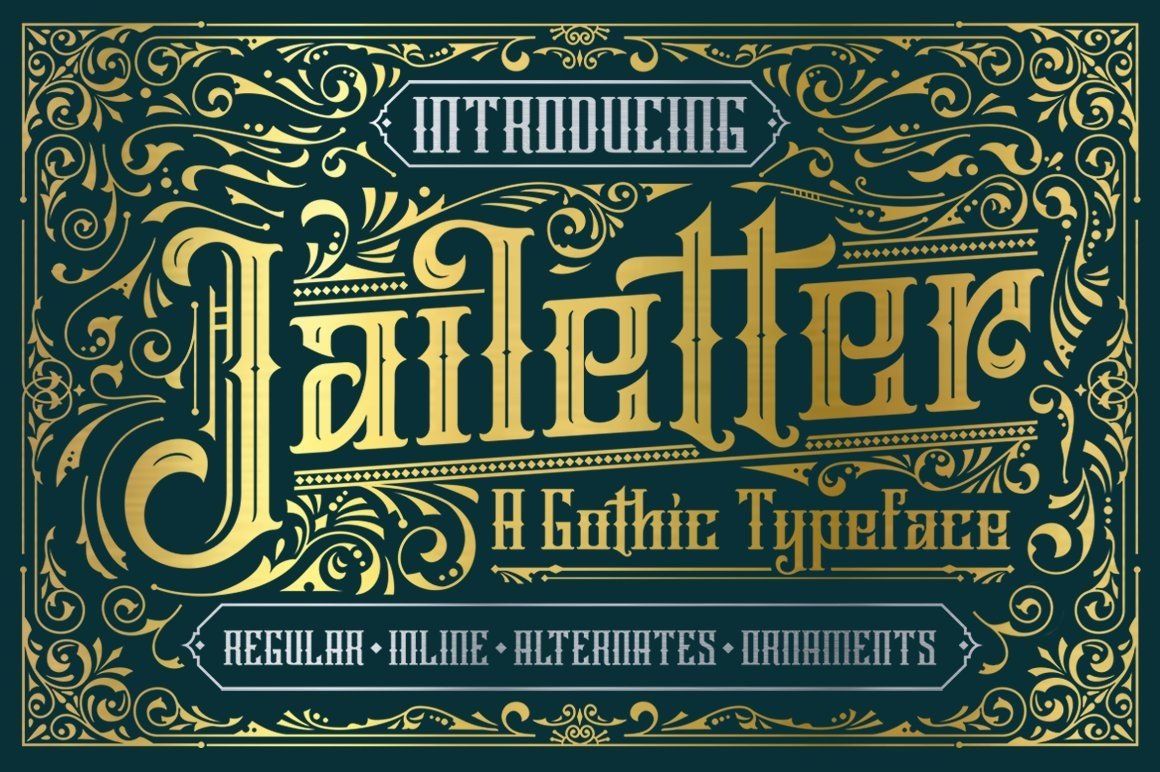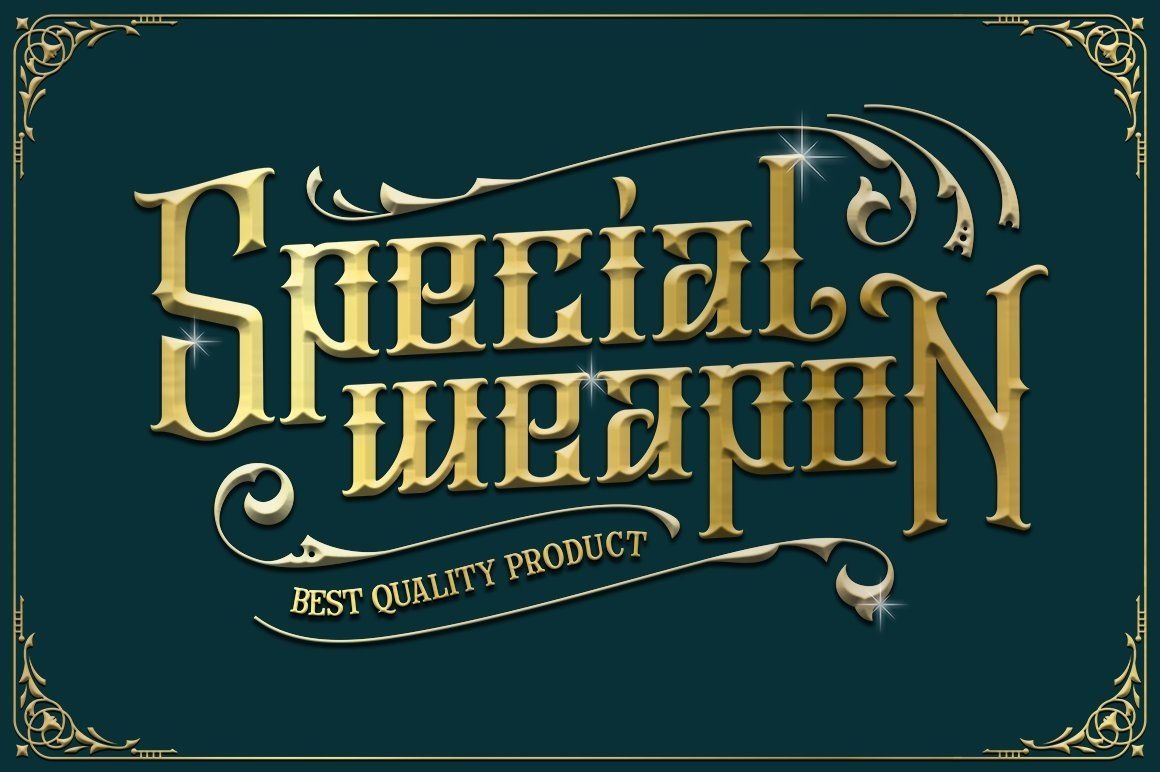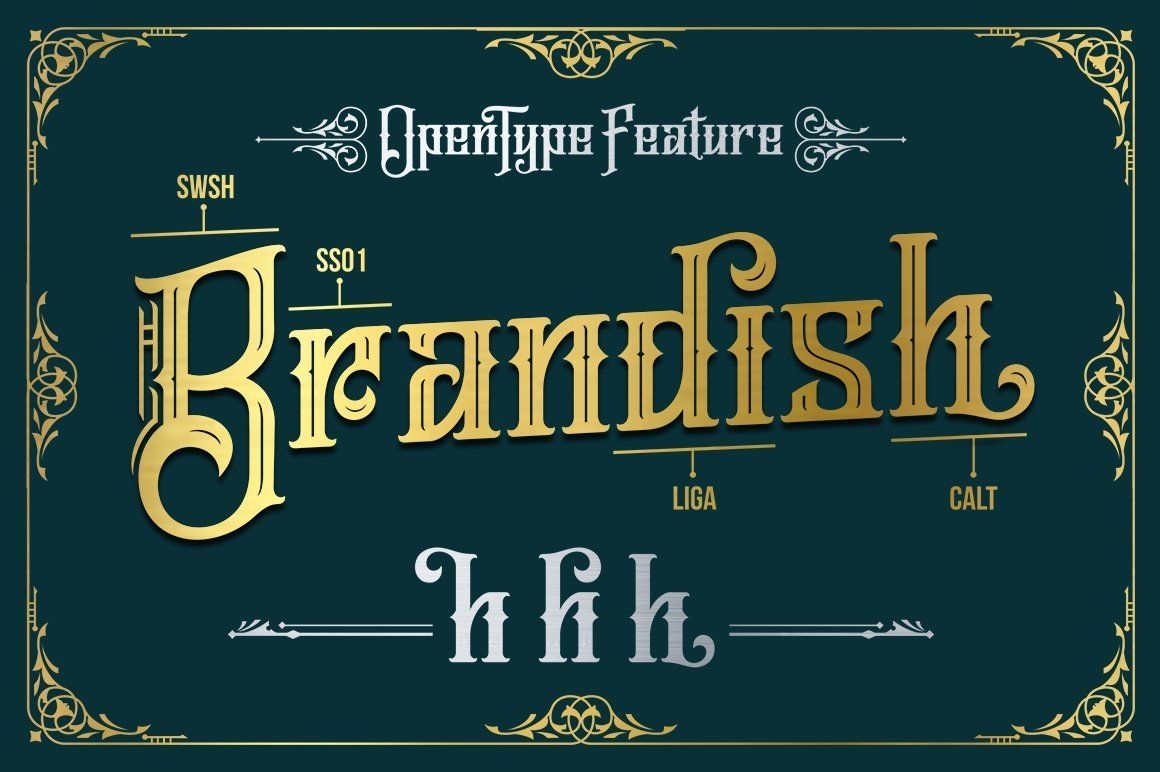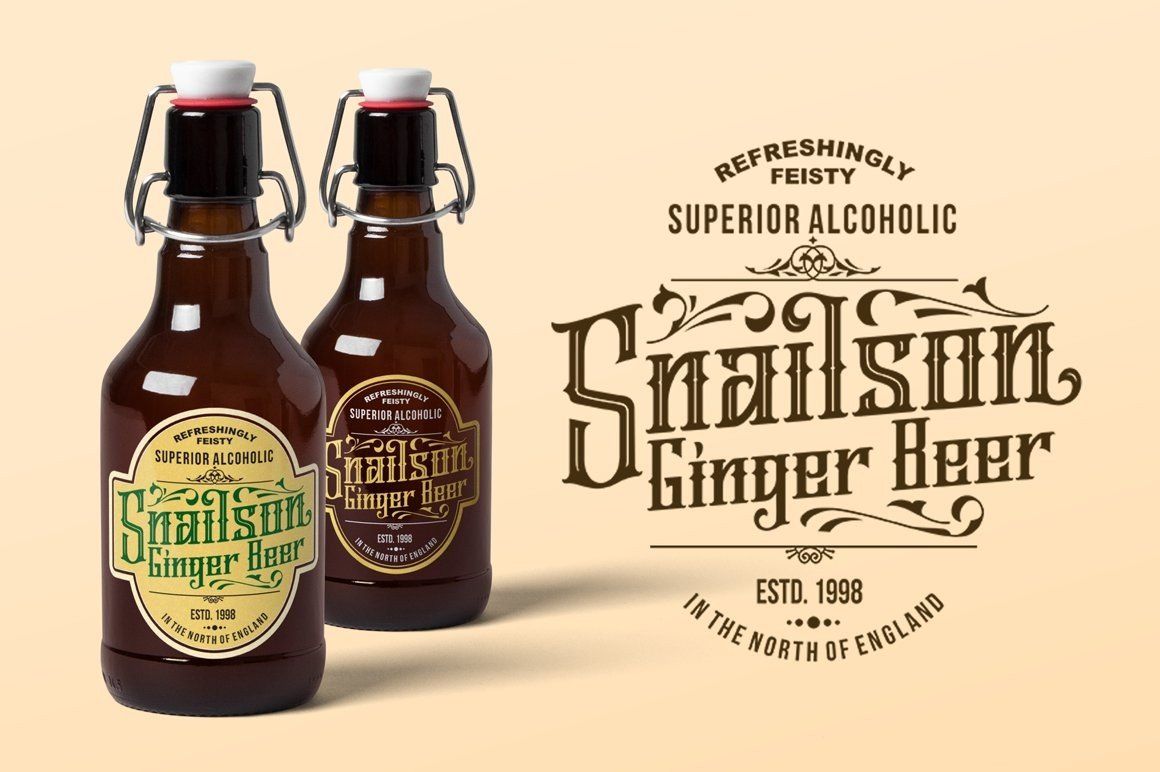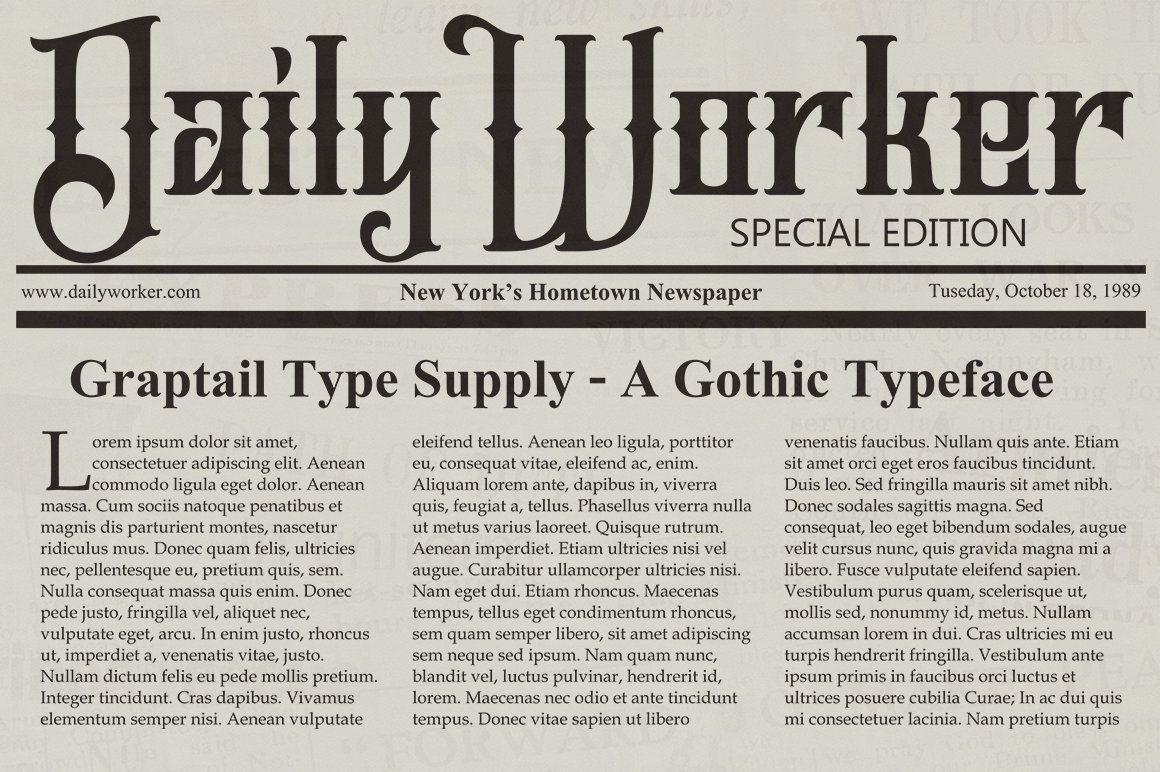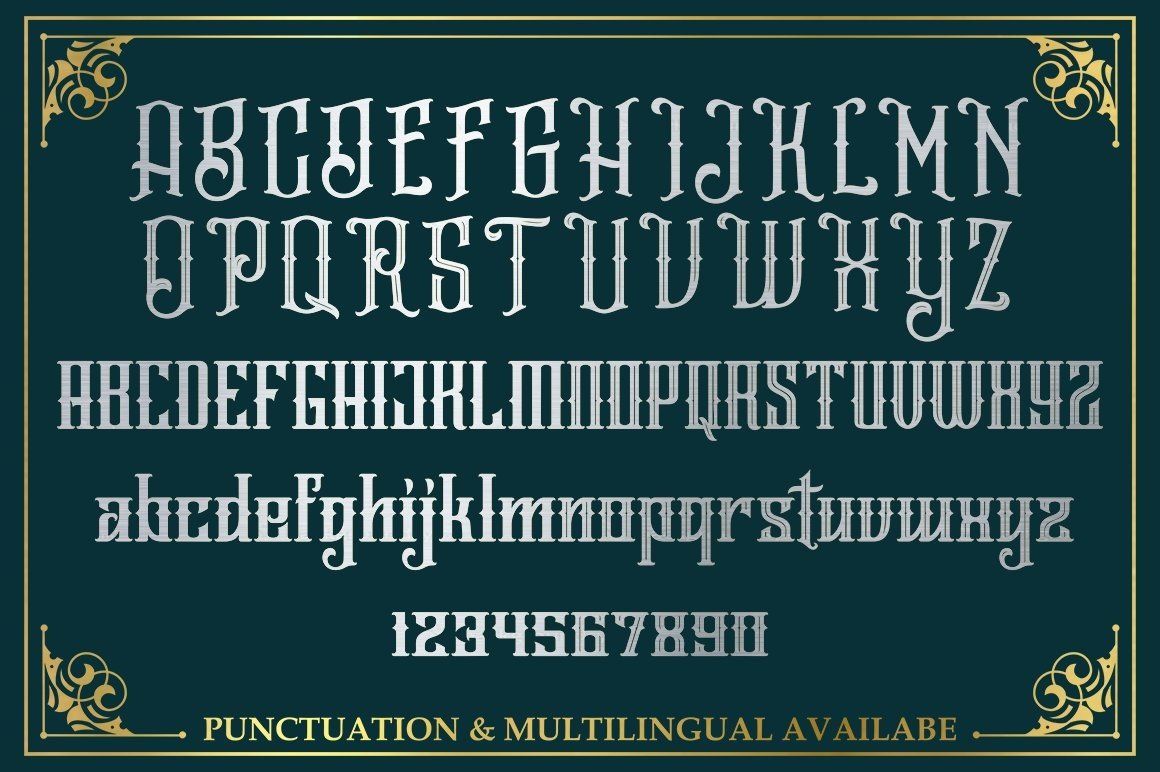
Jailetter is a font gothic is made by hand, inspired by classic labels. So much inspiration as you access it. All benefits you will feel when you start to create works with Jailetter fonts. What are you waiting for, the best price and best quality we give you with pride.